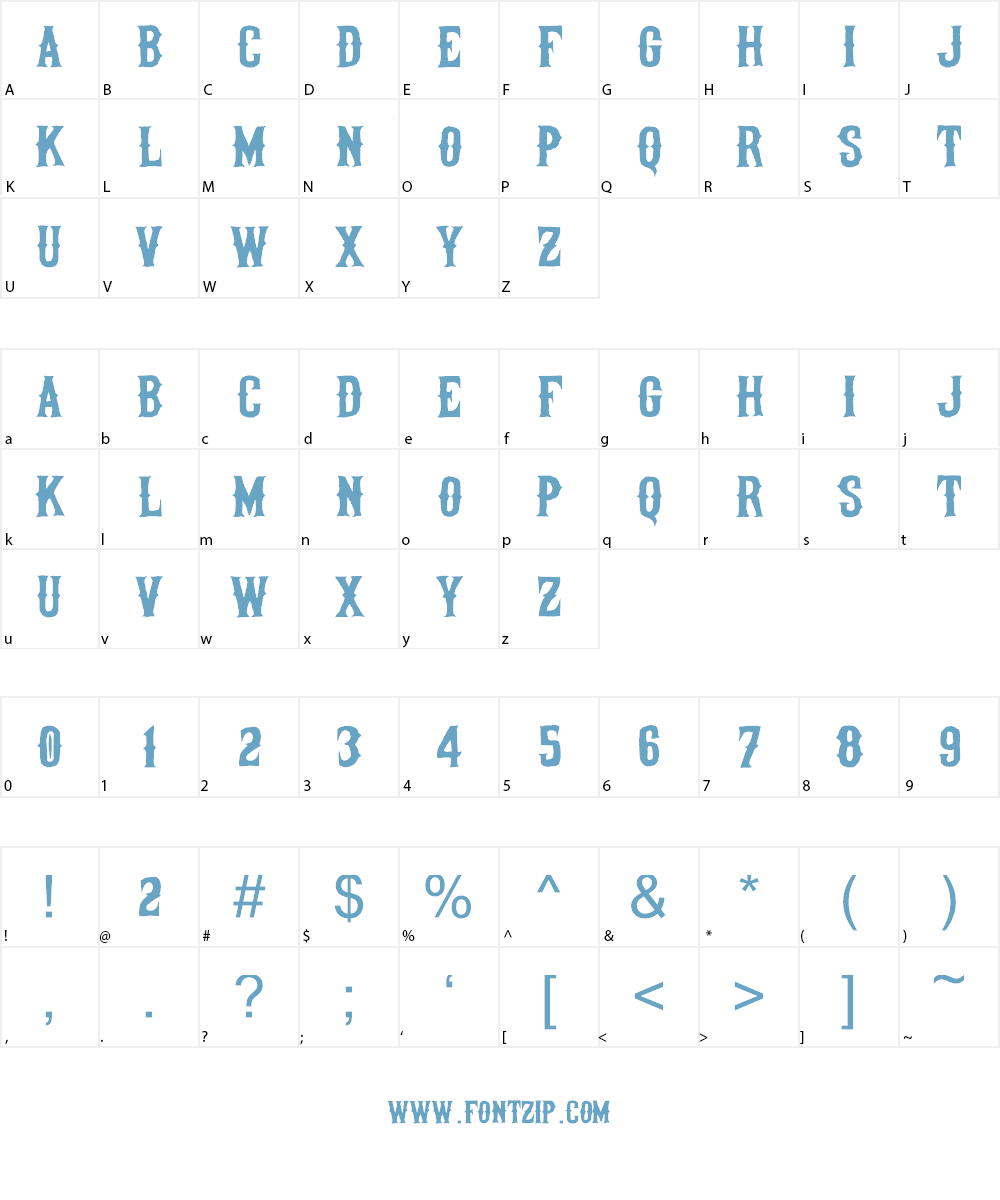
The Helltown Typeface.
A handmade lettering typeface with vintage bike concept and the rebel sides of the real man's passions. Comes with Uppercase and Numbers. Available for free download, Feel free to use it in any of your projects, really wanna see what you've come up with using this font ;)